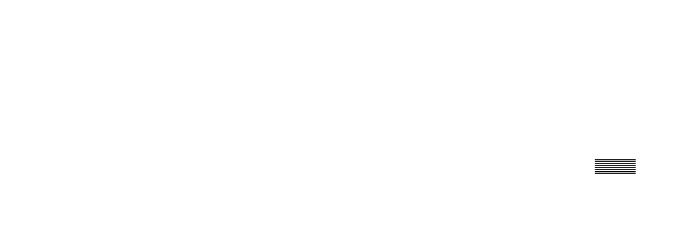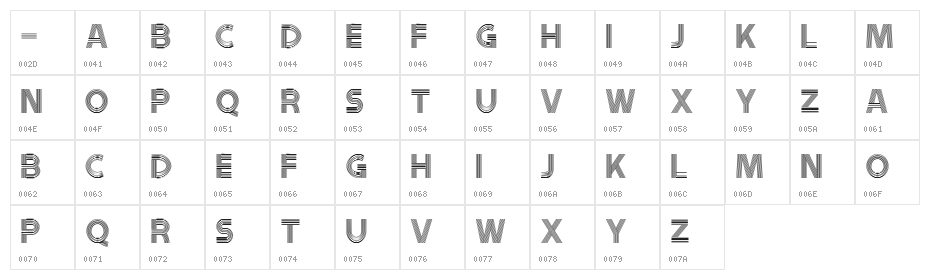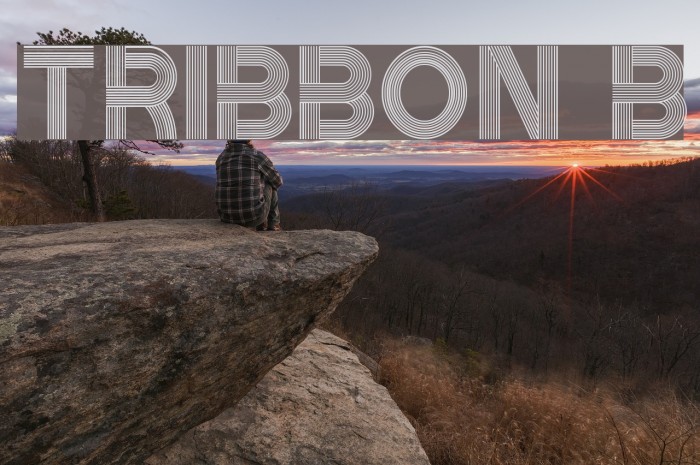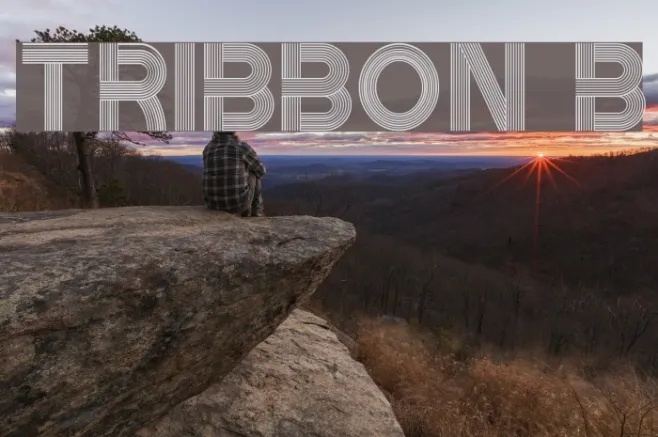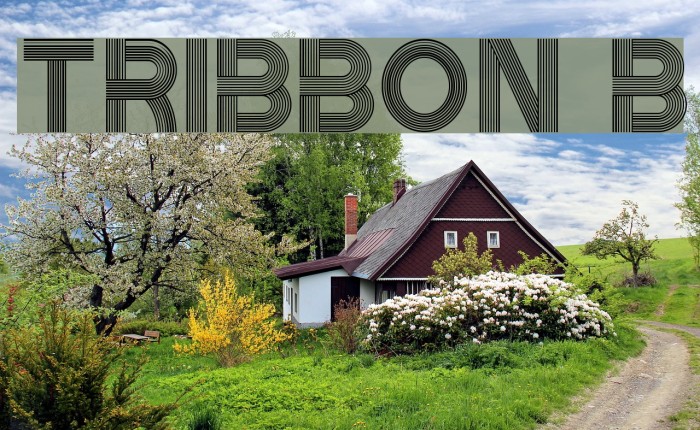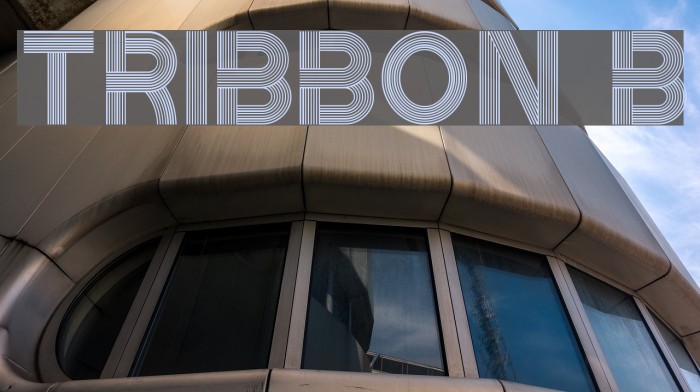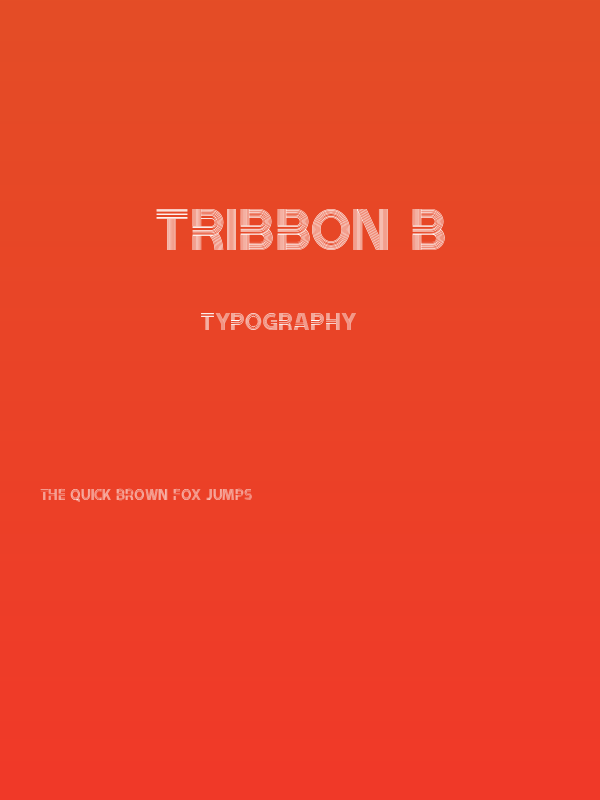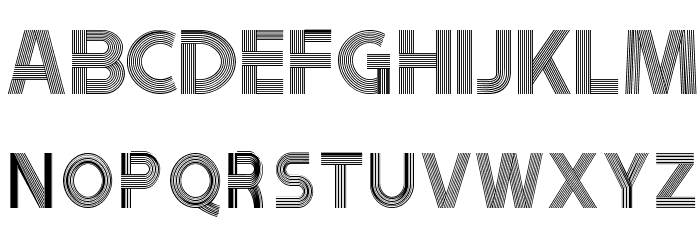
This font features a unique and intricate design, characterized by multiple parallel lines that form each letter. The lines create a layered, ribbon-like effect, giving the font a dynamic and textured appearance. The uppercase letters are bold and striking, with a geometric precision that makes them stand out. The absence of lowercase letters and numbers suggests a focus on decorative and display purposes. The font's style is modern and artistic, making it suitable for creative projects that require a distinctive and eye-catching typeface.
Proposed ProjectsIdeal for posters, logos, branding, and any project that requires a bold, artistic touch.